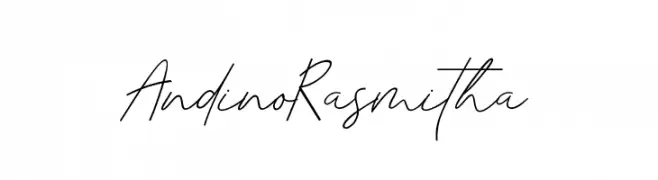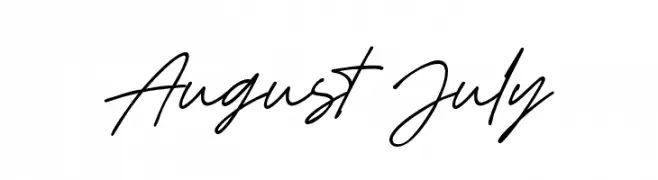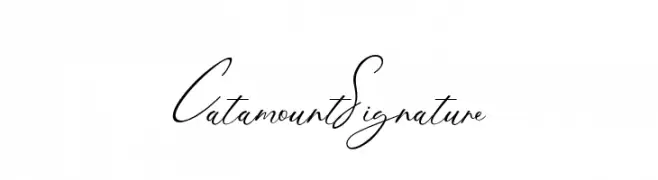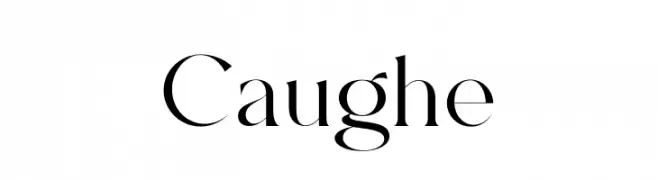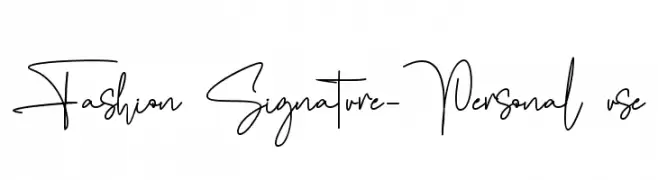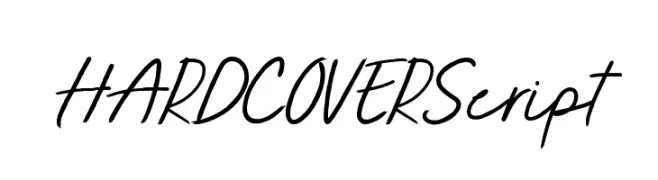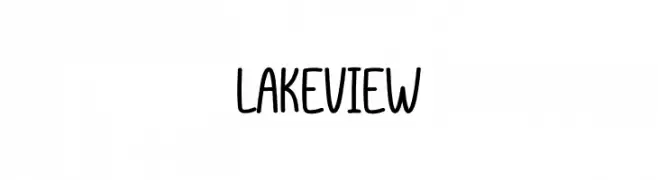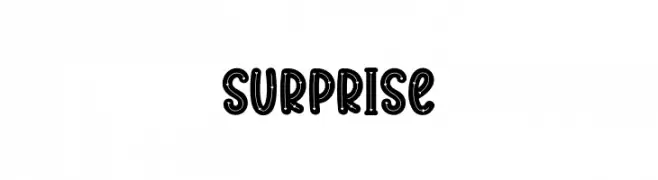
A stylish, elegant handwritten font with fluid, continuous strokes.
A fluid, handwritten script font with a casual and elegant style.
A sophisticated script font with elegant, flowing cursive letterforms.
A bold, geometric font with a modern and striking design.
A dynamic and elegant script font with fluid, flowing letterforms.
A playful, handwritten font with rounded edges and a casual style.
A flowing, cursive font with elegant, elongated strokes and a handwritten calligraphy style.
A bold, playful font with rounded, outlined characters.
A dynamic, cursive script font with flowing, interconnected letters and varied stroke thickness.
A high-contrast serif font with elegant, sharp serifs and a modern touch.